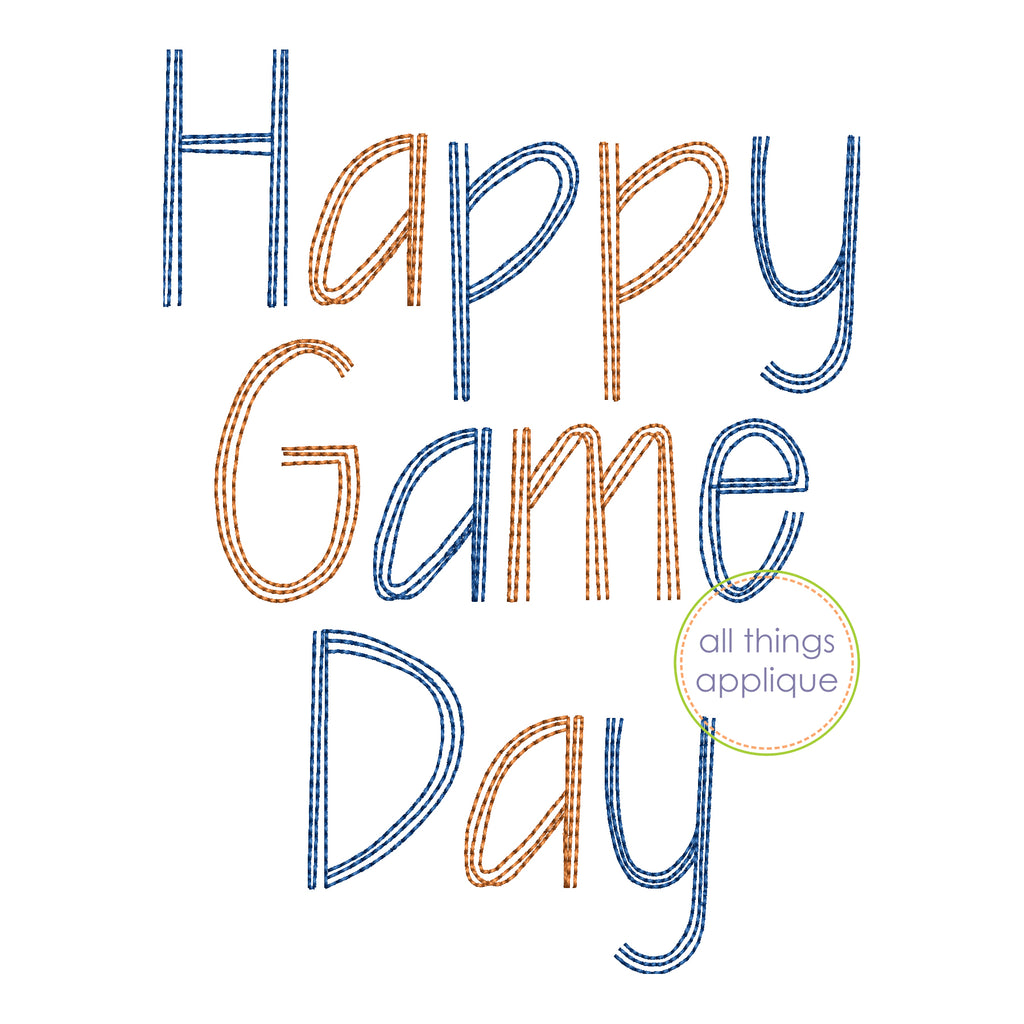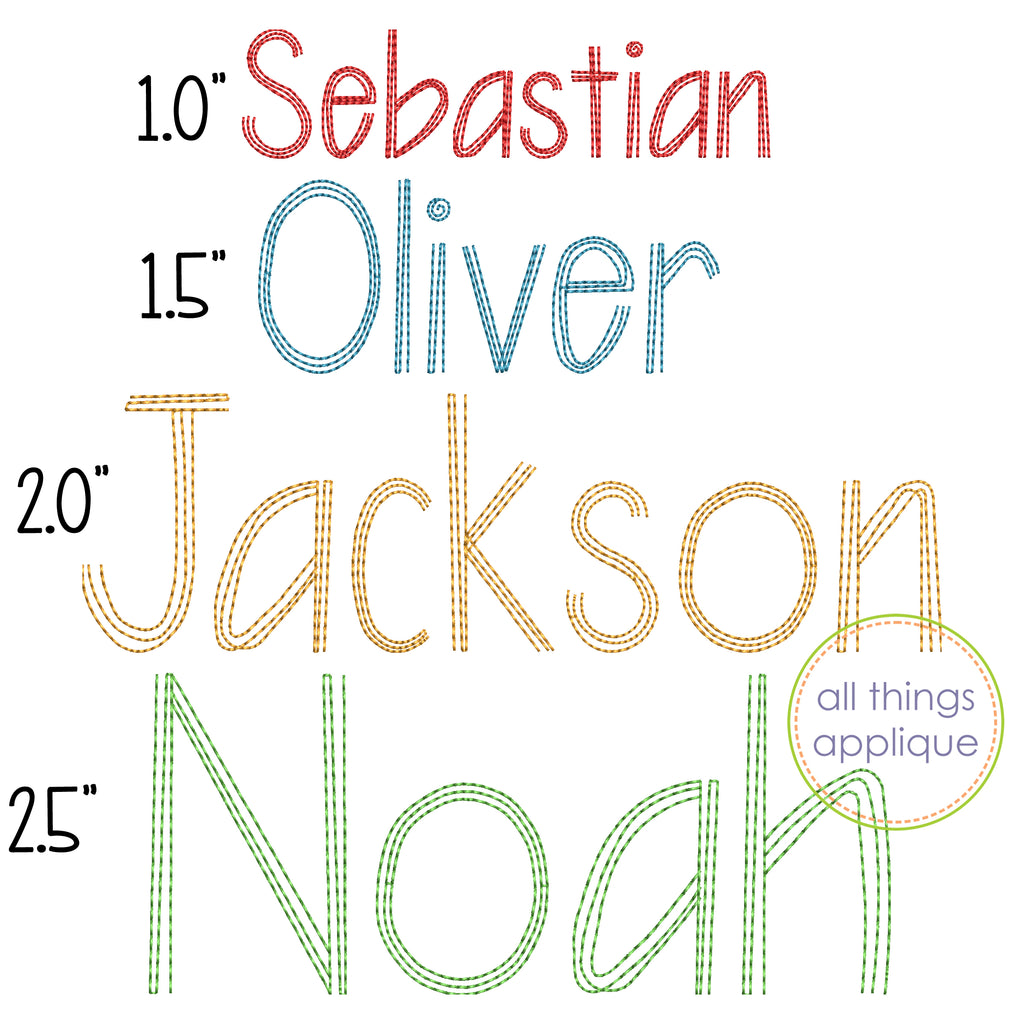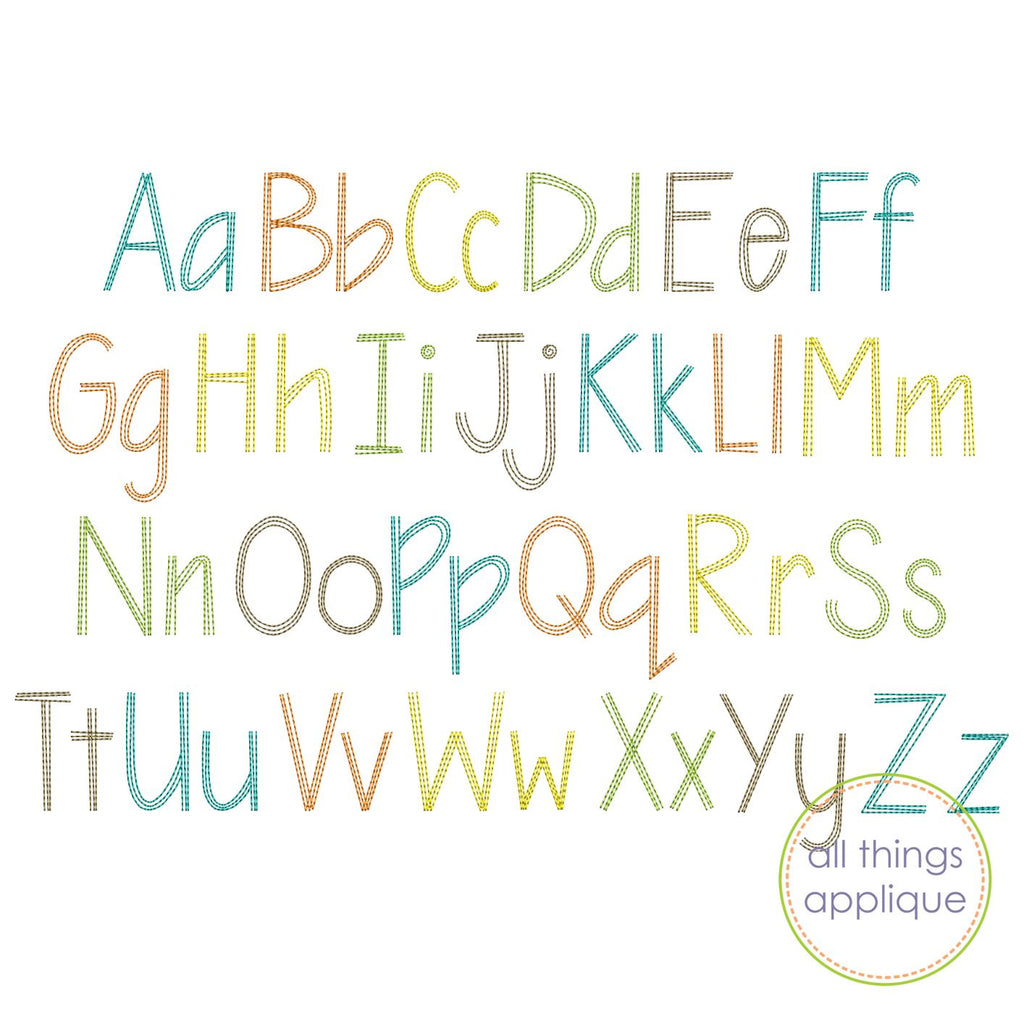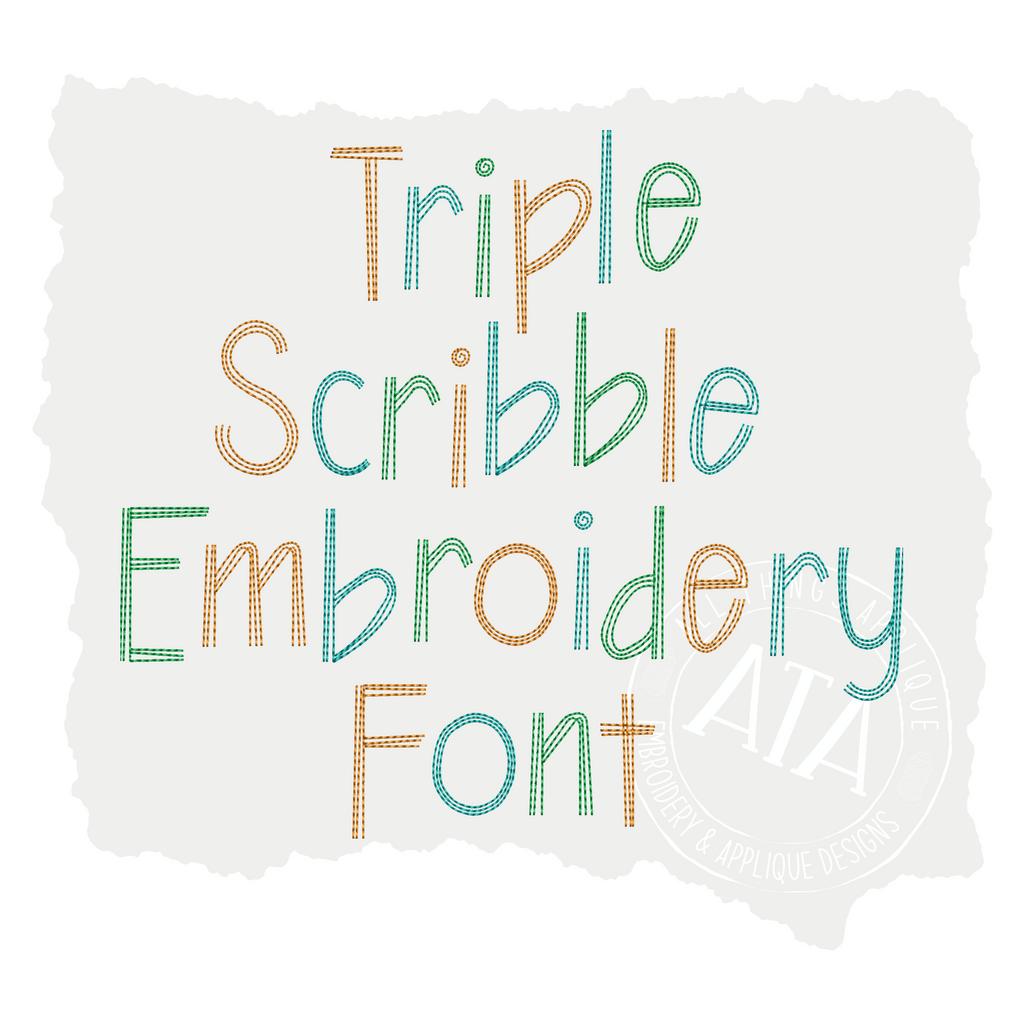
Triple Scirbble Embroidery Font
Triple Scribble Embroidery Font Bean Vintage Stitch for Machine Embroidery Design by All Things Applique
A quick and simple embroidery font perfect to stitch with any quick stitch or vintage embroidery design.
You will receive 26 letters in both Uppercase and Lowercase and in 4 sizes: 1.0". 1.5",2.0", 2.5"
Note: This font is stitched with a "quick" triple stitch/bean stitch.